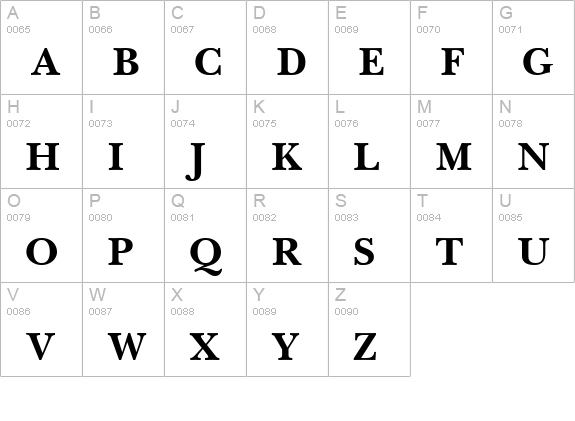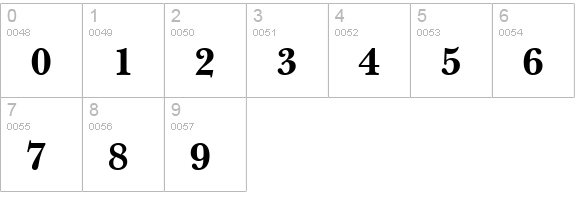
Baskerville Cyrillic Bold Font Details
Baskerville Cyrillic Bold is a strong, high-contrast variant in the Baskerville typeface family \xE2\x80\x94 well suited to headlines, attention-grabbing titles, and strong calls-to-action.
The Baskerville Cyrillic Bold font is a striking and elegant typeface that exudes sophistication and authority. Its bold weight and distinctive serifs make it perfect for headlines, titles, and other attention-grabbing text. The Cyrillic characters add a unique touch to the classic Baskerville design, giving it a modern and international flair. What sets this font apart is that it is available for free download at FontsMarket.com. This means that you can enhance your projects with the timeless charm of Baskerville Cyrillic Bold without any cost. Whether you're designing a poster, logo, or website, this font will add a touch of refinement and professionalism to your work. Download Baskerville Cyrillic Bold today and elevate your designs with this versatile and eye-catching typeface.